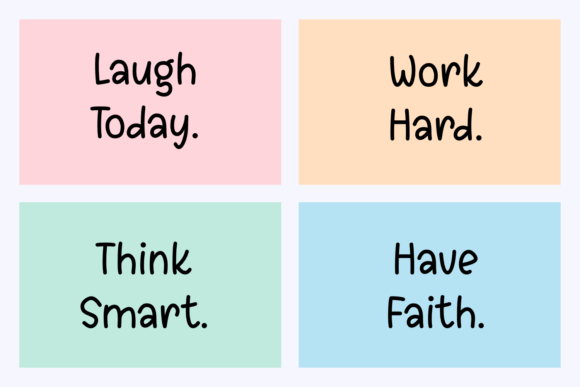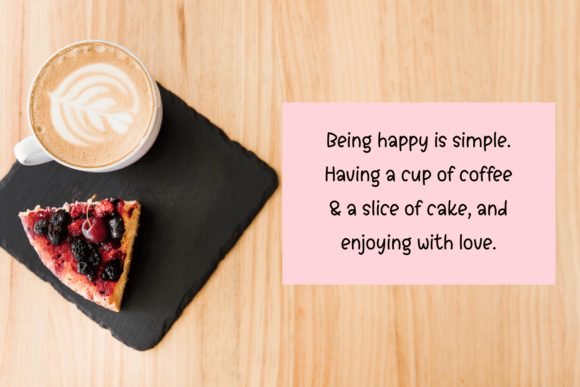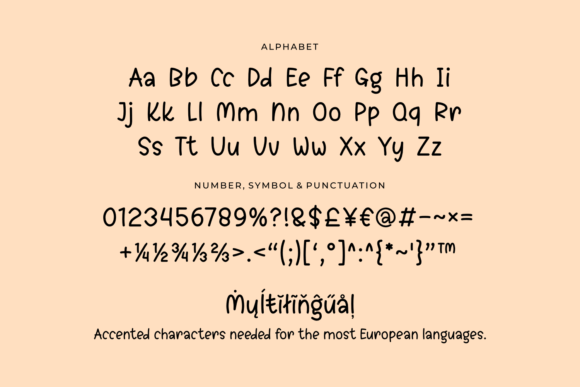
Introduction to Maggie Kalista Font
Discover the delightful charm of Maggie Kalista, a hand-sketched font that breathes sweetness onto your creations.
Itโs been infused with an irresistible minimalist whimsy, making it the secret ingredient for crafting an enchanting aura Maggie Kalistaโs simplicity allows it to blend seamlessly across a range of applications.
Key Features of Maggie Kalista Font
Why Choose Maggie Kalista Font?
Maggie Kalista Font offers exceptional quality and versatility, making it a valuable addition to your design toolkit. Whether you’re creating for personal projects or commercial use, Maggie Kalista Font delivers professional results.